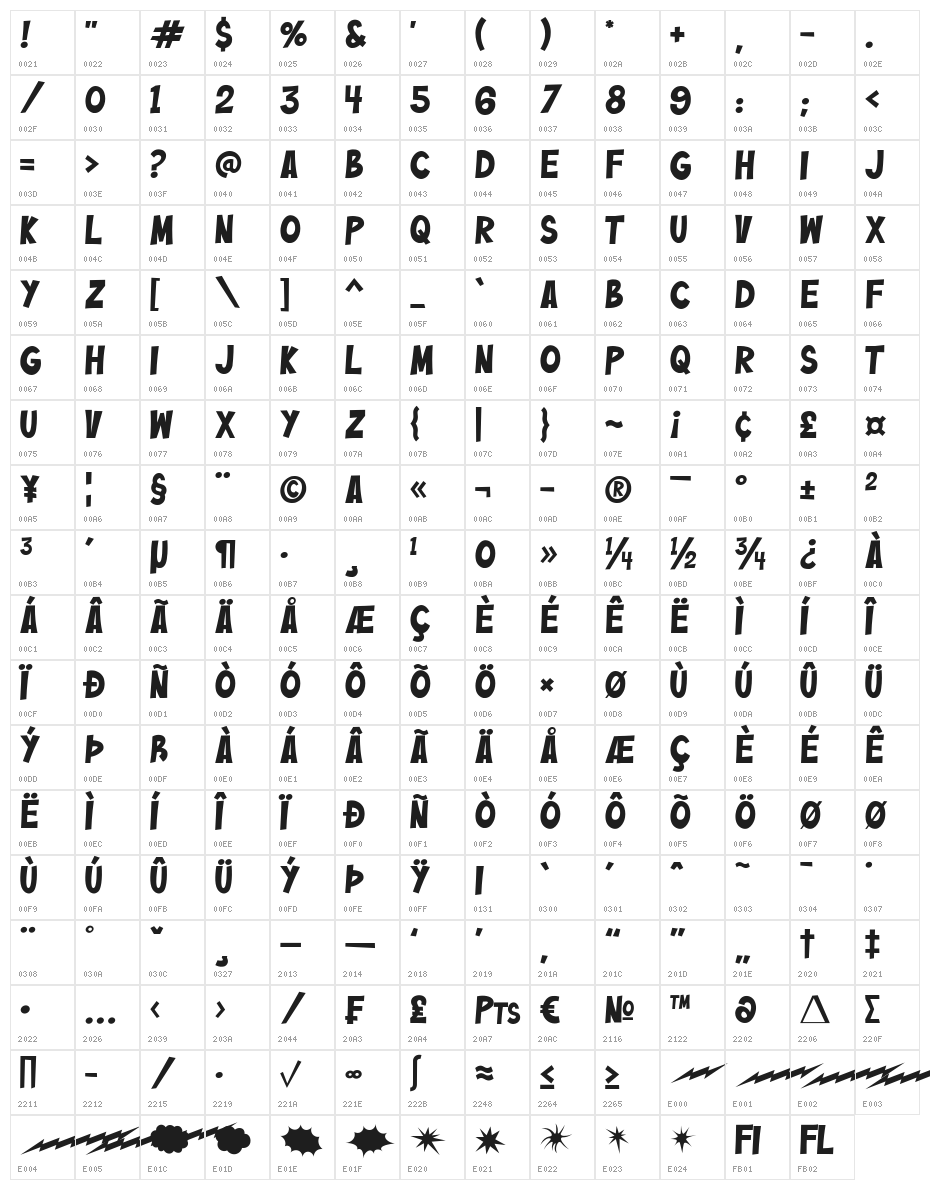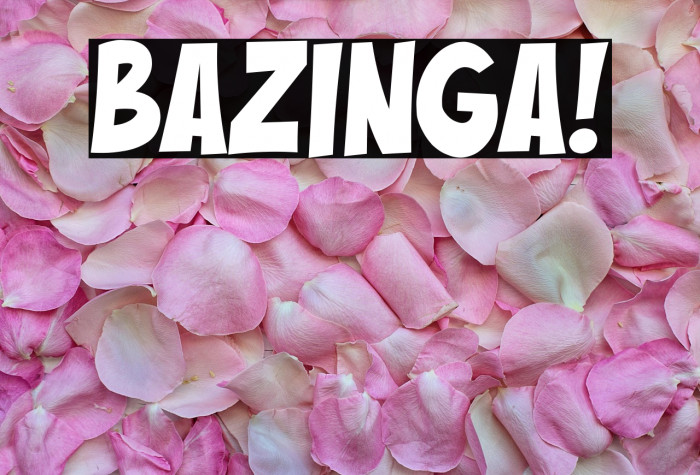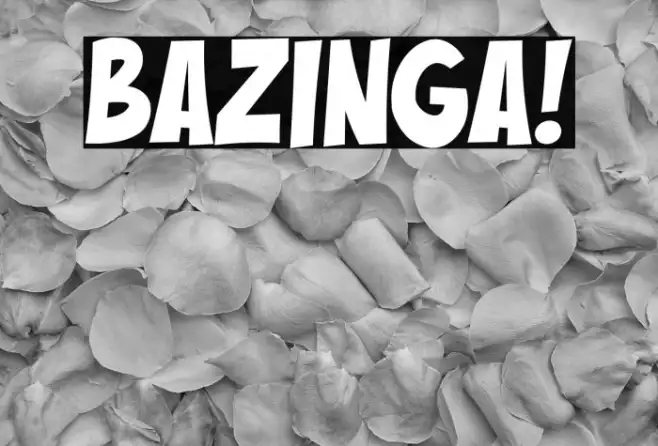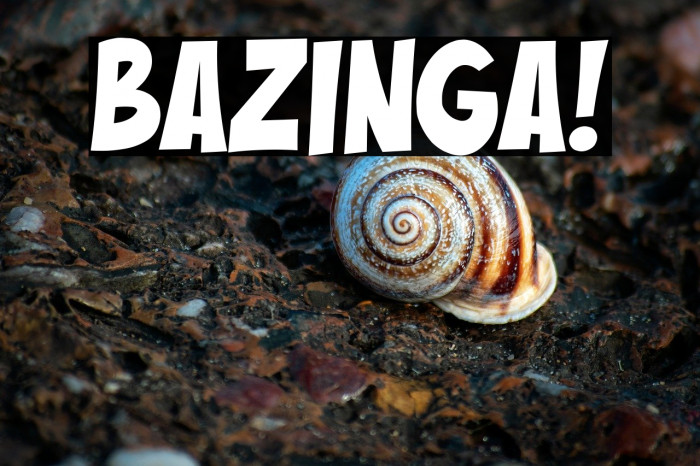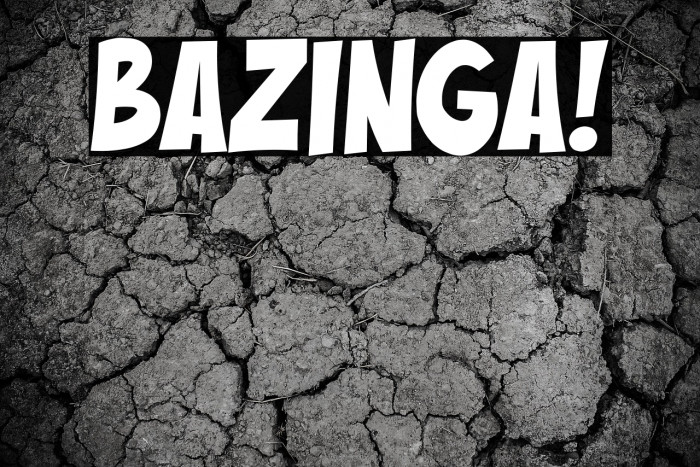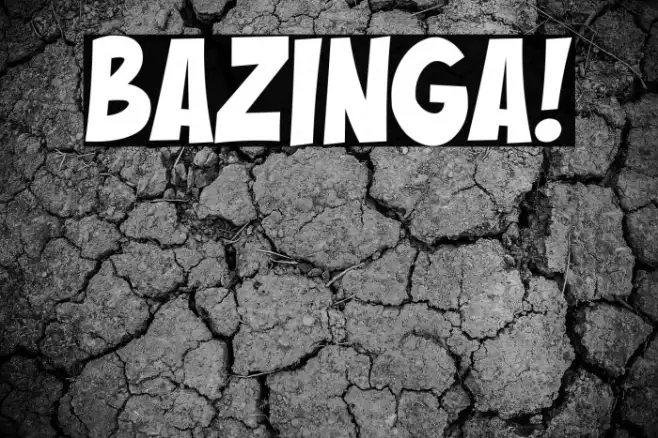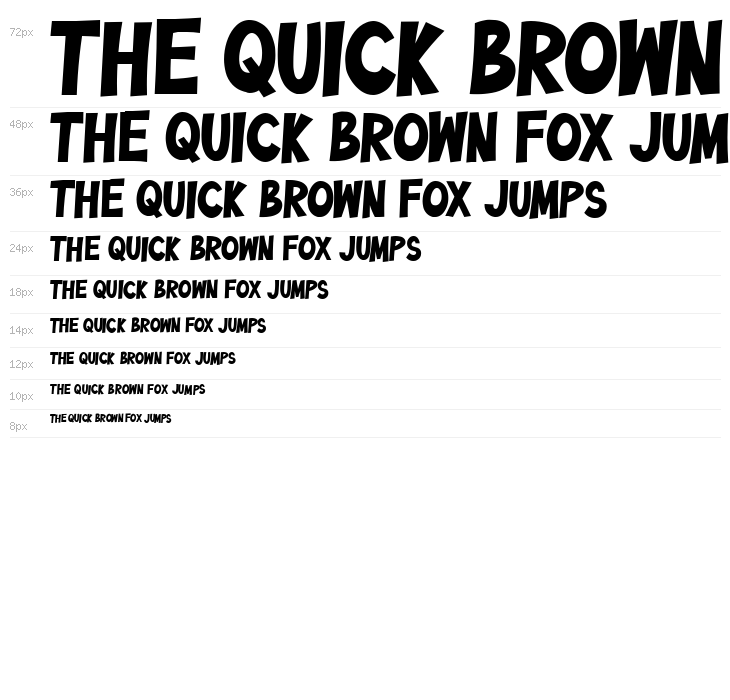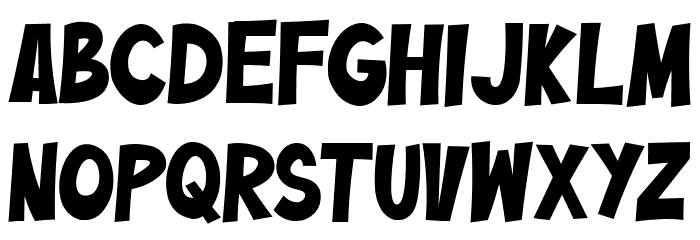
Bazinga! Font
Bazinga! Description
This font features a bold and playful style with exaggerated curves and angles, giving it a dynamic and energetic appearance. The uppercase letters are particularly striking, with a slightly slanted orientation that adds to the sense of movement. The lowercase letters maintain this playful aesthetic, ensuring consistency throughout the typeface. The numerals are equally bold, with a uniform thickness that complements the overall design. Special characters are included, maintaining the same bold and playful style, making this font versatile for various uses. The font's thick strokes and unique character shapes make it stand out, ideal for projects that require a fun and engaging typeface.
| Overall Style | Playful, Energetic |
| Proposed Projects | Ideal for comic books, children's books, playful branding, and eye-catching posters. |